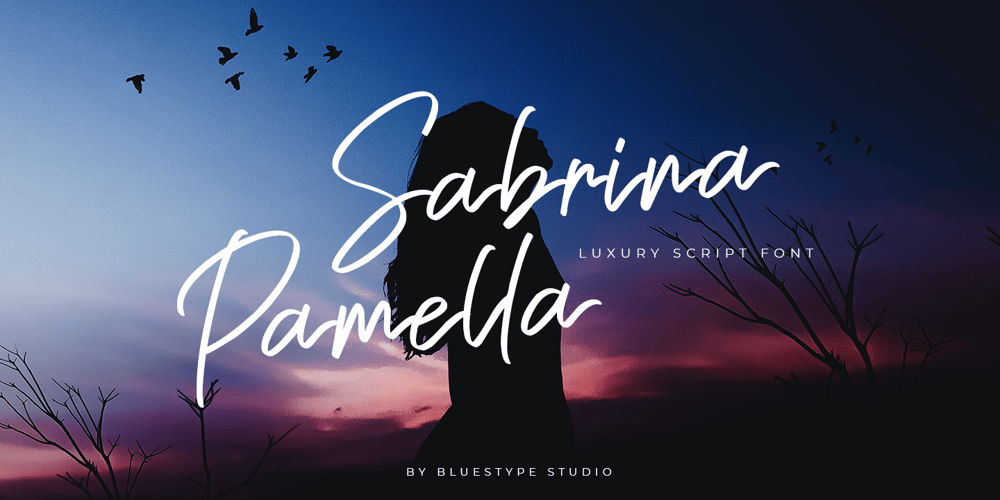
Sabrina Pamella Font Family was designed by Jefri Dwi Alfatah and published by Bluestype Studio. Sabrina Pamella contains 1 styles and family package options. This is our newest product called Sabrina Pamella. Sabrina Pamella is a stunning signature font with a bold vibe. It will turn any design idea into a true standout.This font is suitable for use on business cards, weddings, t-shirt designs, logos, magazines, quotes, fashion, watermarks, invitations, signatures.What’s include:- Alternate Characters- Multilingual Support- SwashesThank you, and don’t forget to check out our other products.